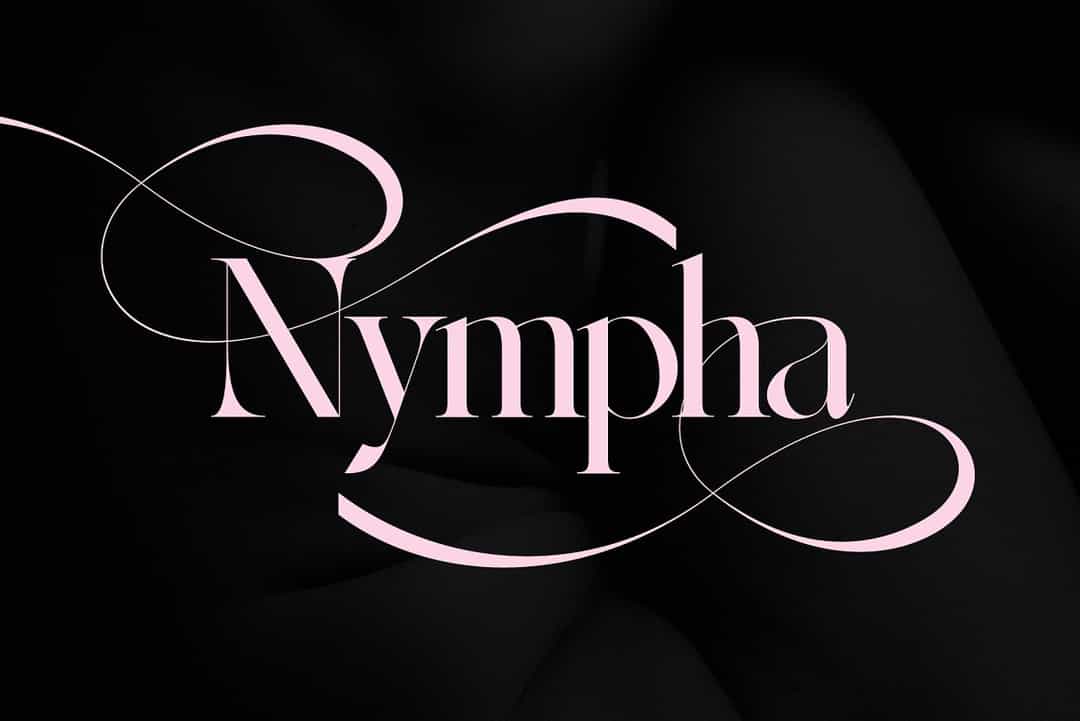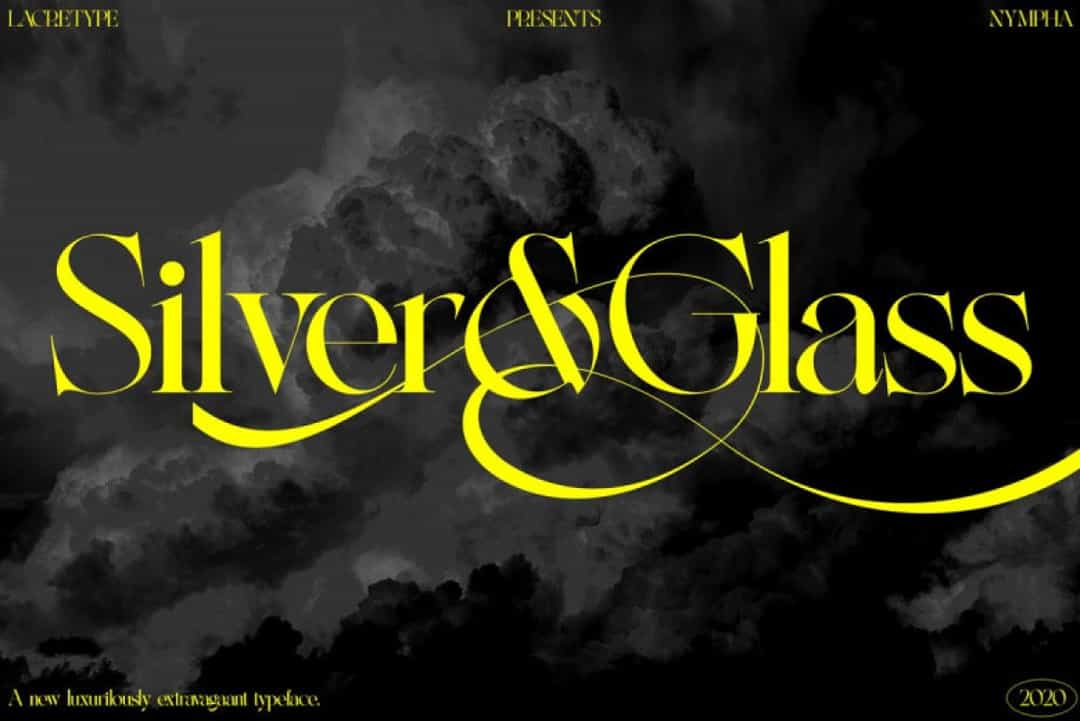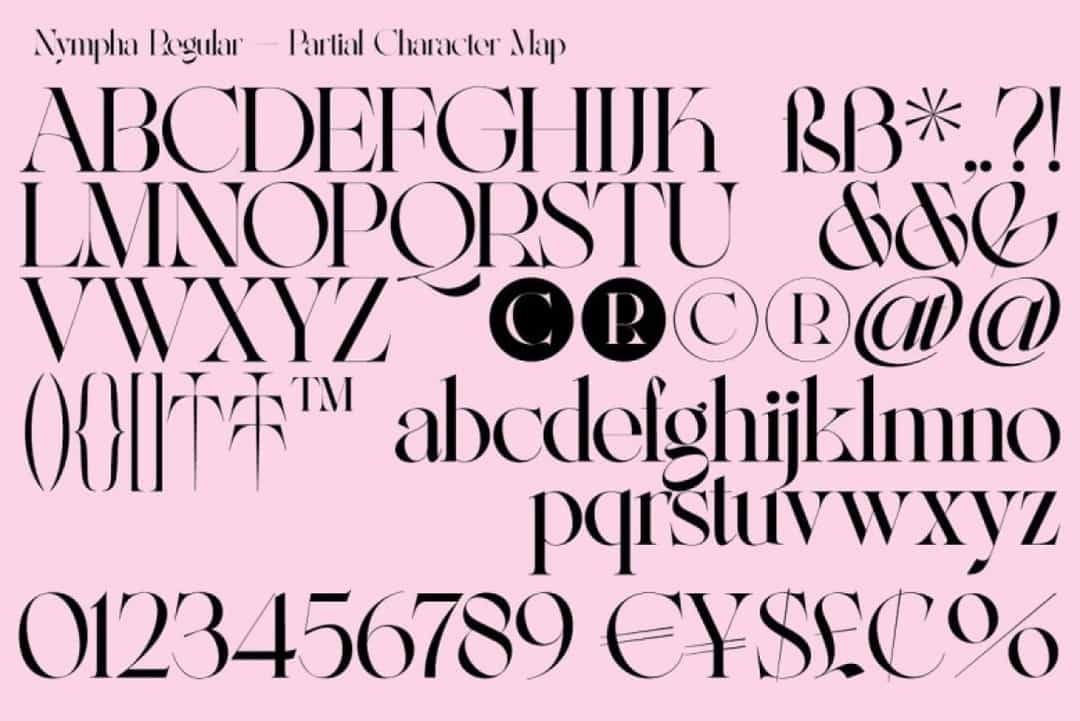
Nympha Font is an exquisitely constructed and lavishly exuberant serif font designed to exude glamour, feminine beauty, opulence, strong contrasts and refined elements that exude glamour & femininity – with luxurious swashes & curves adding an aesthetic modernity. This striking font makes a remarkable statement in any typographic design and graphic project, providing elegance along with modern aesthetic.